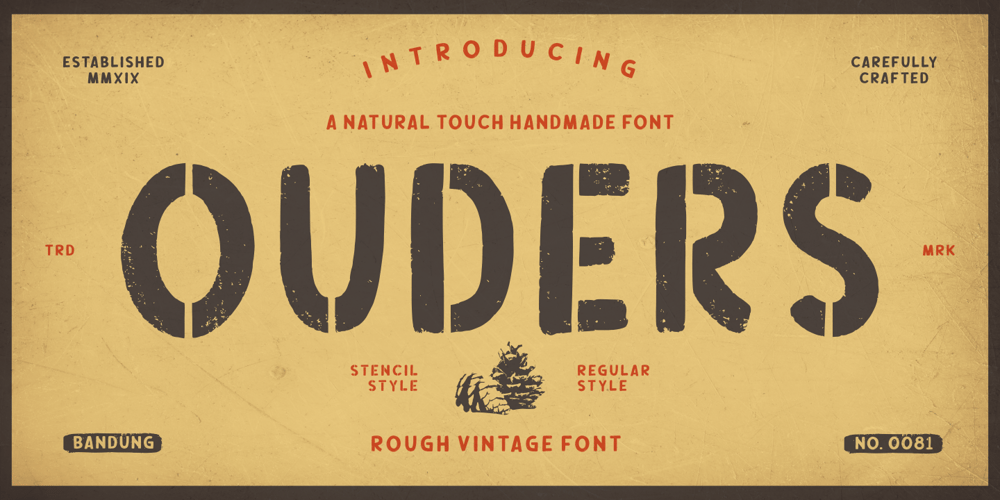
Ouders Font Family was designed by Risman Ginarwan and published by Garisman Studio. Ouders contains 2 styles and family package options. Introducing Ouders – Stencil & Regular Font A display font that has a strong and bold look. This font is made by hand so it looks natural and very suitable for vintage and rustic theme. Perfectly made to be applied especially in logos, and the other various formal forms such as invitations, labels, magazines, books, greeting/wedding cards, packaging, stationery, novels, labels or any type of advertising purpose.By combining both styles (stencil and regular) you will create a single design with an old style that is perfect! That’s why you have to use this font. If you like the previous styles, you are right to use this font!